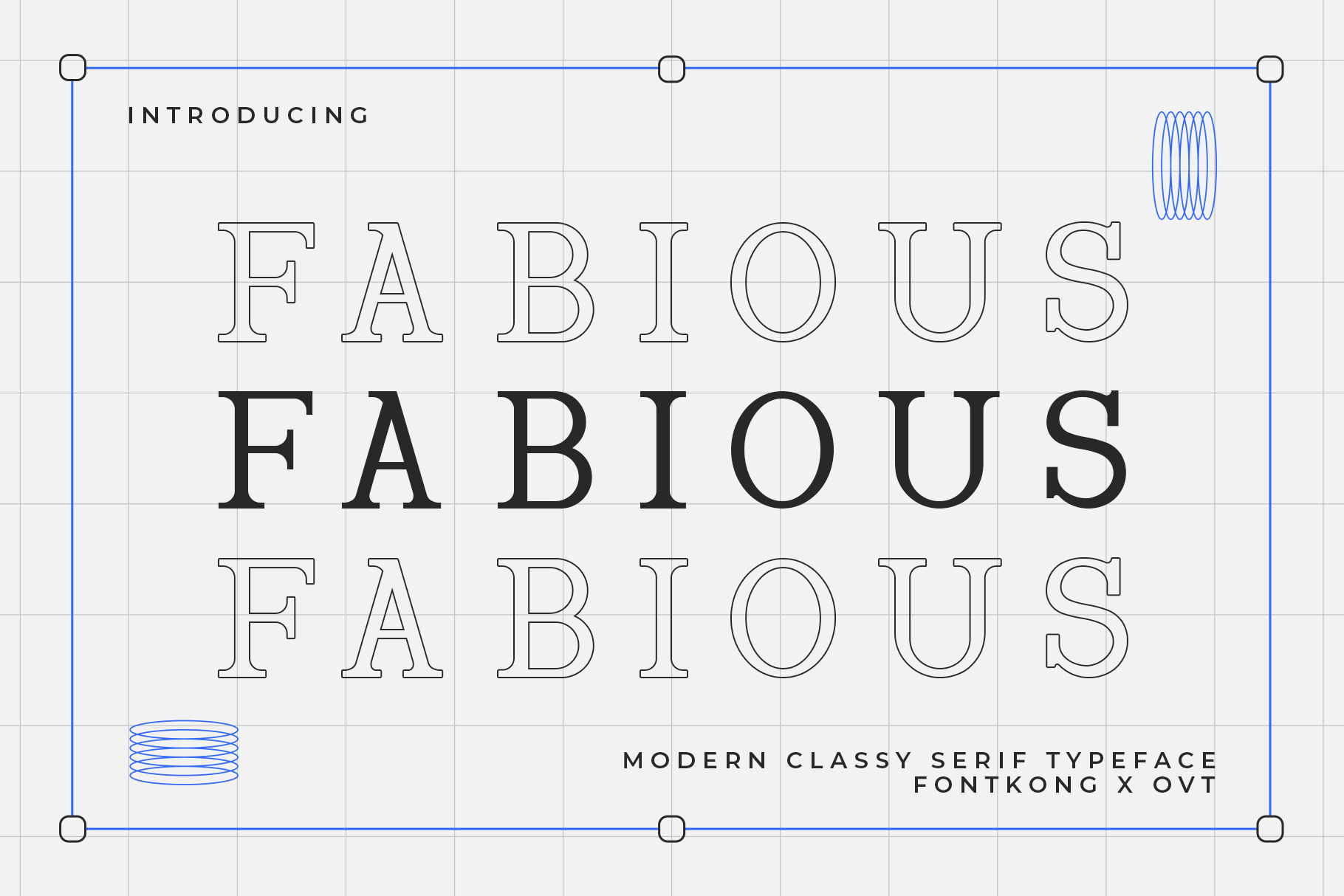
Fabious - Modern Classy Serif Typeface
Introducing "Fabious," a modern classy serif typeface that embodies timeless elegance and contemporary sophistication. Perfect for graphic designers, typographers, and creatives looking to add a touch of class to their projects, Fabious offers a refined and versatile aesthetic that enhances any design.
Ideal for branding, editorial content, invitations, logos, and upscale advertising, Fabious’ sleek and stylish characters bring a sense of luxury and professionalism. Each letter is meticulously crafted to provide superior readability and a distinguished appearance, ensuring your designs make a lasting impression.
The "Fabious" font includes a full set of uppercase and lowercase letters, numbers, punctuation marks, and special characters. This comprehensive set allows for seamless integration into a variety of design applications, from elegant branding to sophisticated editorial layouts.
Elevate your designs with Fabious, the modern classy serif typeface that redefines elegance in every character.